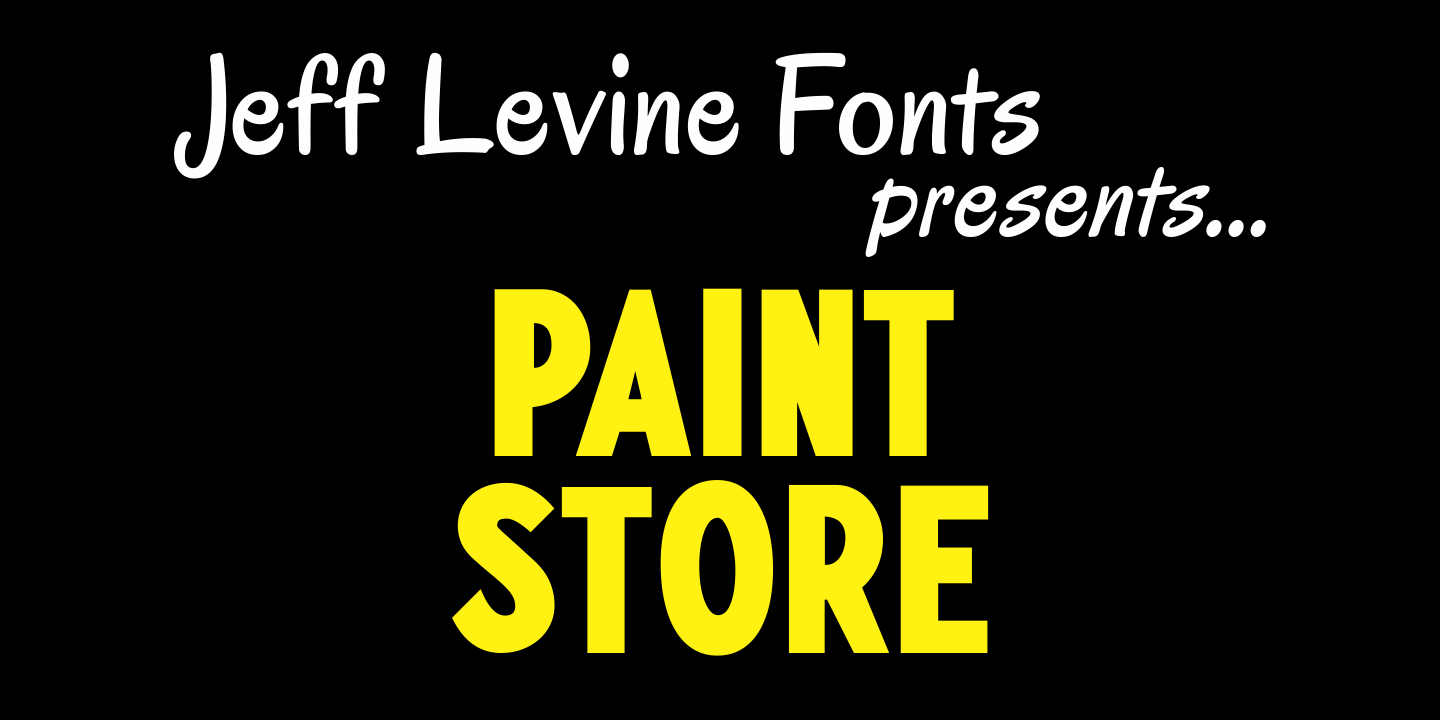
Paint Store
Paint Store JNL is the third in Jeff Levine's series of display fonts modeled from actual water-applied decals that were manufactured by the Duro Decal Company of Chicago (now Duro Art Industries).
Duro Decals were sold in paint, hardware, variety and art supply stores, and even [in some cases] print shops.